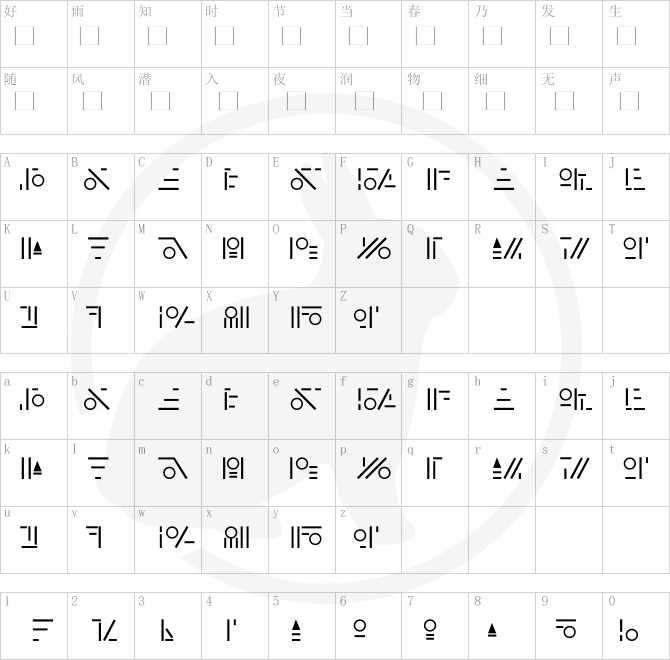
- Font Name:Fabrini
Fabrini.ttf is a very beautiful artistic font, Fabrini.ttf is widely used in the design and printing of various books and pictures,Fabrini.ttf has a strong visual impact,Fabrini.ttf is a commonly used font in newspapers, magazines and books, and is used in posters, e-commerce Poster design, store design, logo design, font design and other fields.Fabrini.